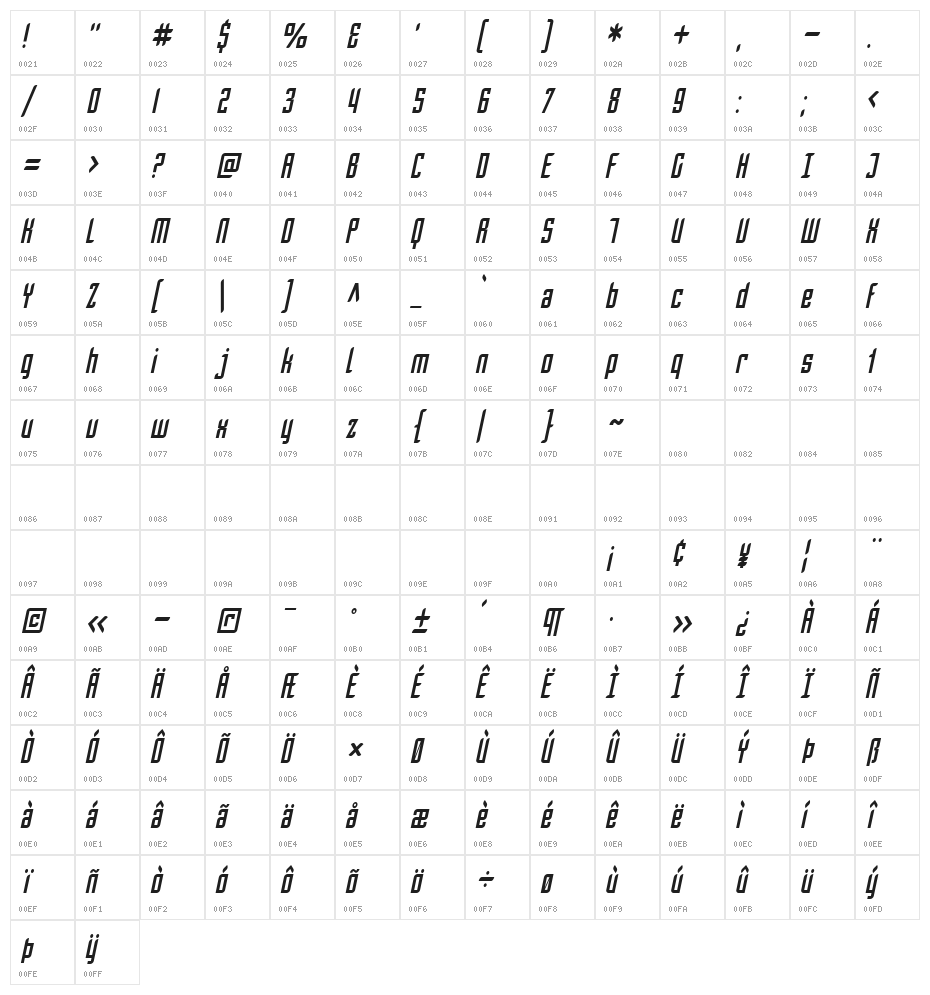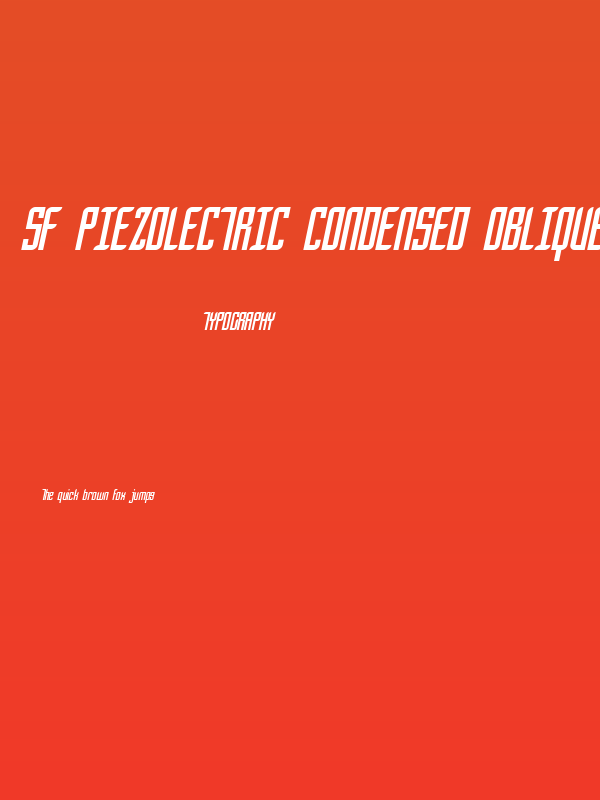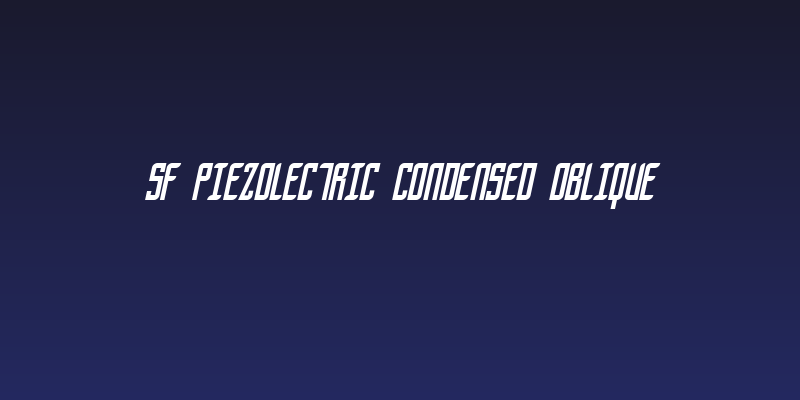
SF Piezolectric Condensed Oblique Font
SF Piezolectric Condensed Oblique Description
This font features a futuristic and dynamic design with a condensed and oblique style. The characters are elongated and slightly slanted, giving a sense of motion and speed. The strokes are consistent in thickness, providing a uniform appearance across all characters. The uppercase and lowercase letters maintain a similar height, enhancing the compact look. The numerals are distinct and align well with the overall aesthetic. Special characters are uniquely styled to match the font's modern and sleek design, making it suitable for tech-oriented projects.
| Proposed Projects | Ideal for technology branding, sci-fi themed designs, video game interfaces, and modern advertising. |